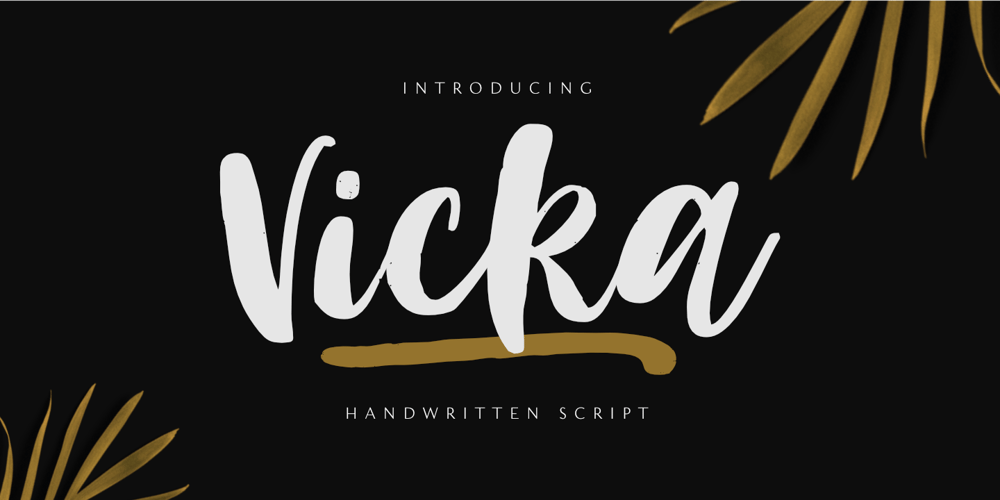
Vicka Font Family was designed by Nurul Hidayani and published by Olivetype. Vicka contains 1 styles and family package options. Vicka is a lovely and trendy handwritten font. It is the best choice for creating eye catching logos, branding ans quotes.The font Vicka contains 220 glyphs. Supporting more than 66 languages, from English to Zulu. This font is PUA encoded which means you can access all of the glyphs and swashes with ease! So what’s included: Basic Latin A-Z & a-z. Numbers, symbols, and punctuations Ligatures Swashes Multilingual Support. Accented Characters : ÀÁÂÃÄÅÆÇÈÉÊËÌÍÎÏÑÒÓÔÕÖØŒŠÙÚÛÜŸÝŽàáâãäåæçèéêëìíîïñòóôõöøœšùúûüýÿžß Thank You